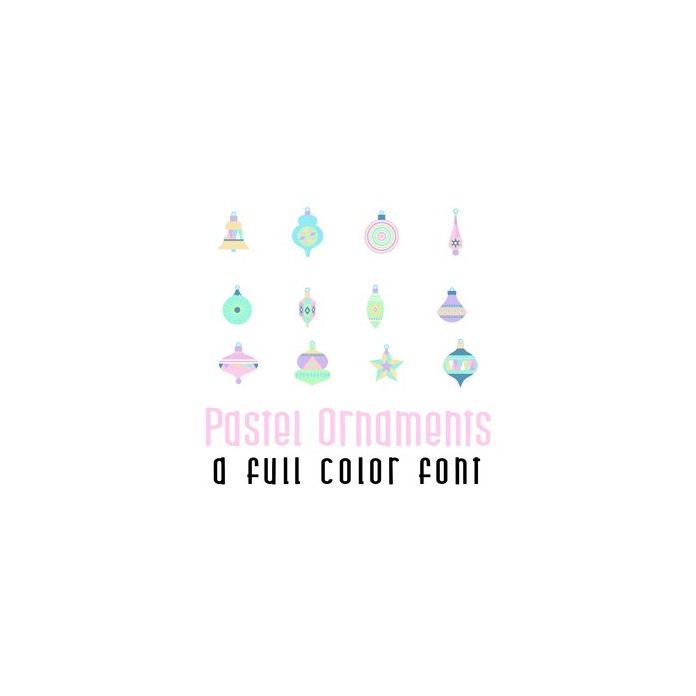
This adorable full-color doodlebat font features 26 contemporary decorative ornaments. Perfect for cards, crafts, gifts, decor, scrapbook pages, planner stickers, and more!